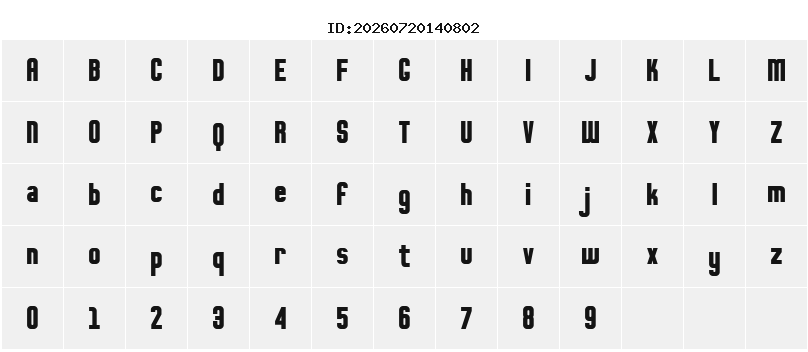
• Font Name: Fresko
• Designer: monocromo
About Fresko.ttf
Fresko.ttf is a modern, elegant sans-serif font designed for ultimate readability and visual harmony. Perfect for branding, headlines, web design, and print materials.